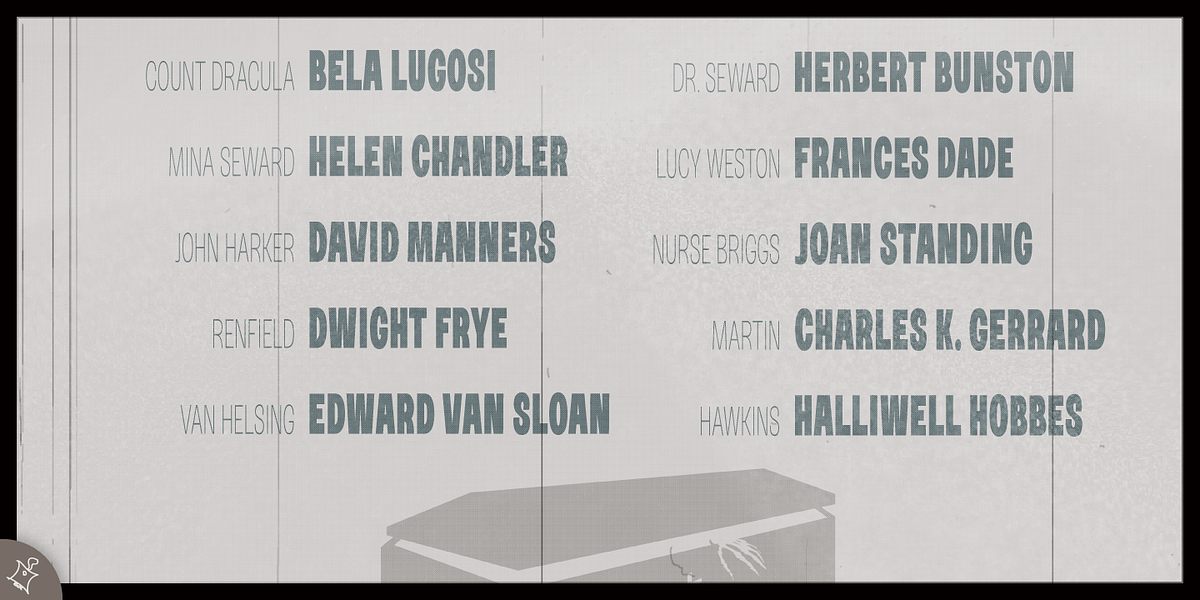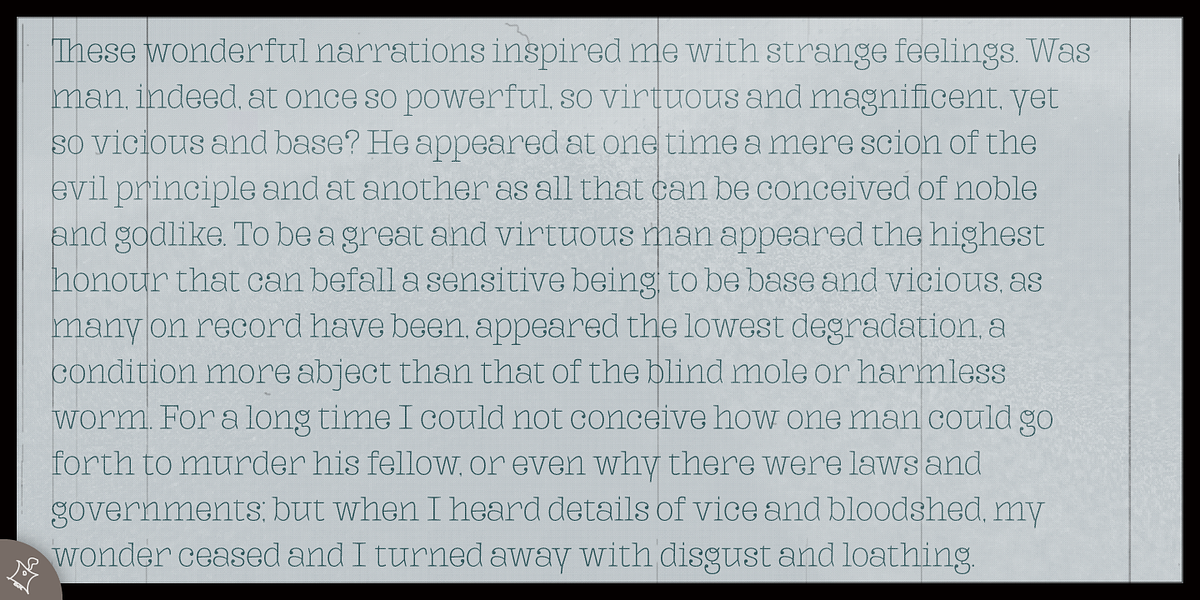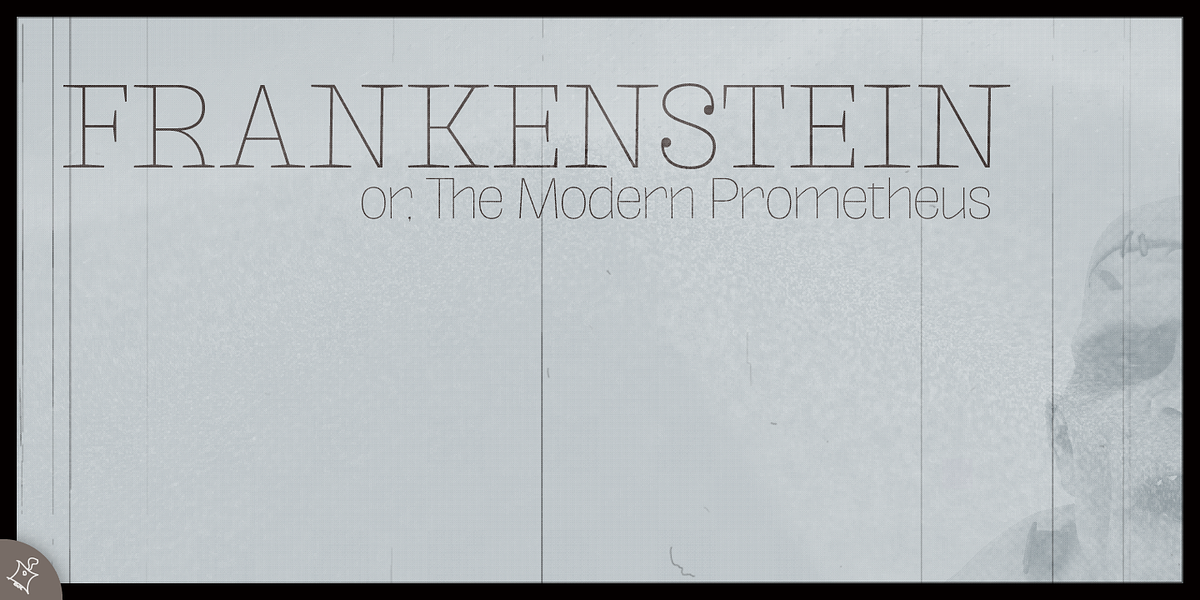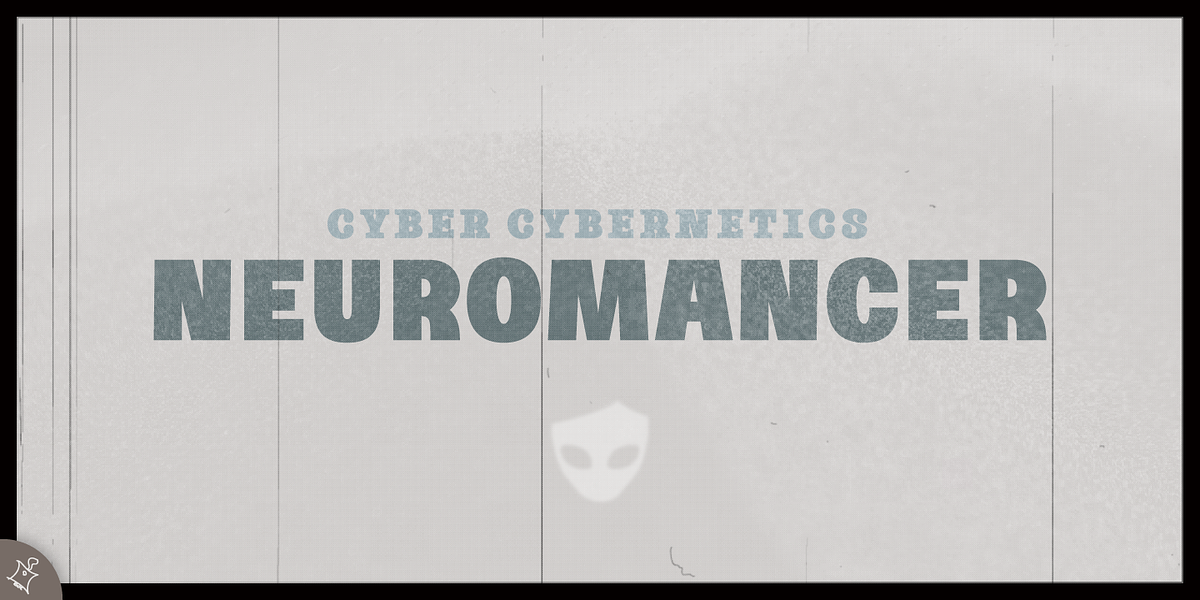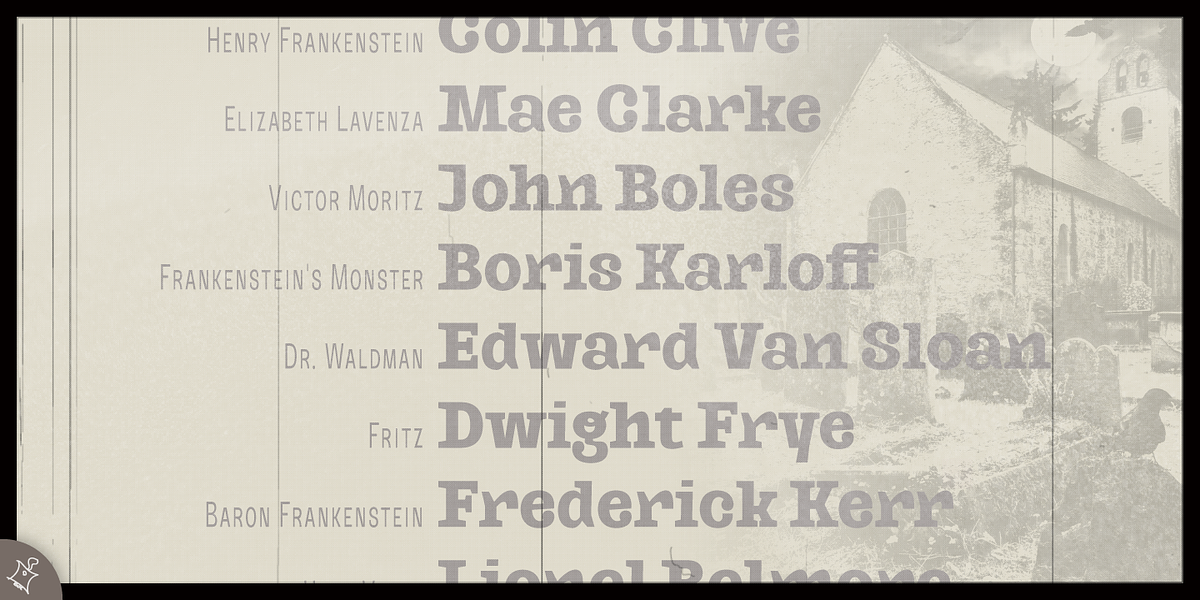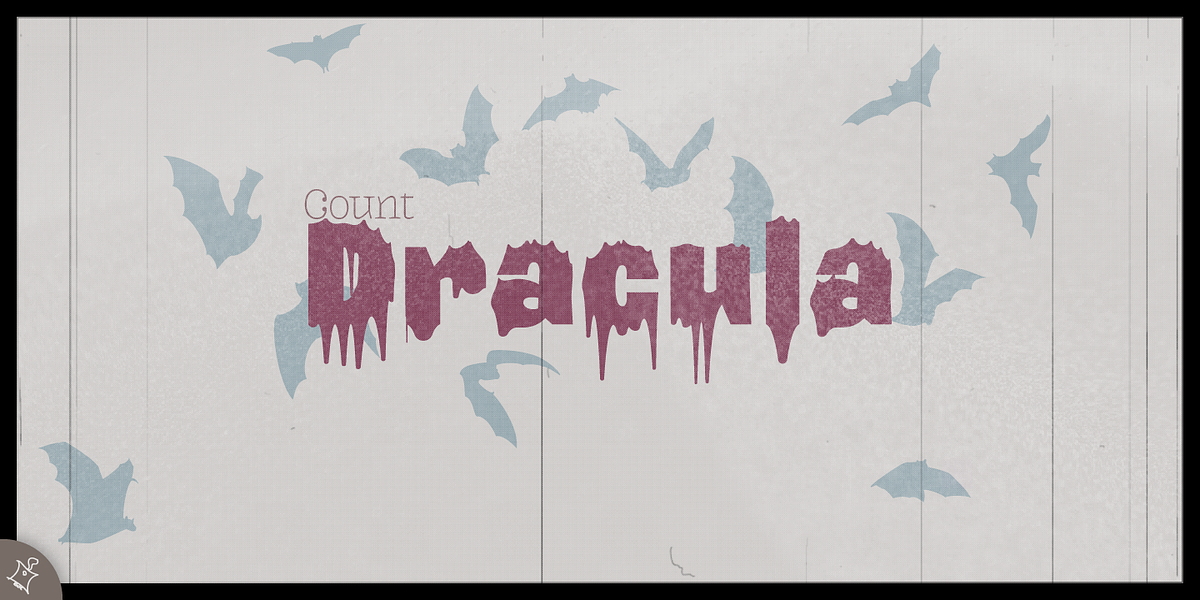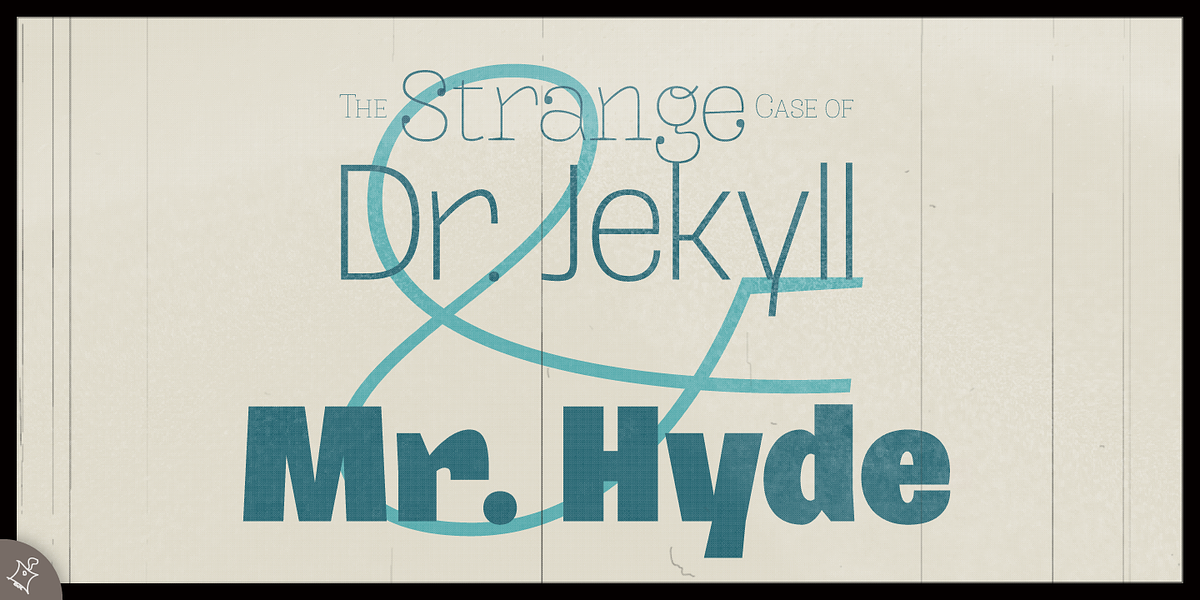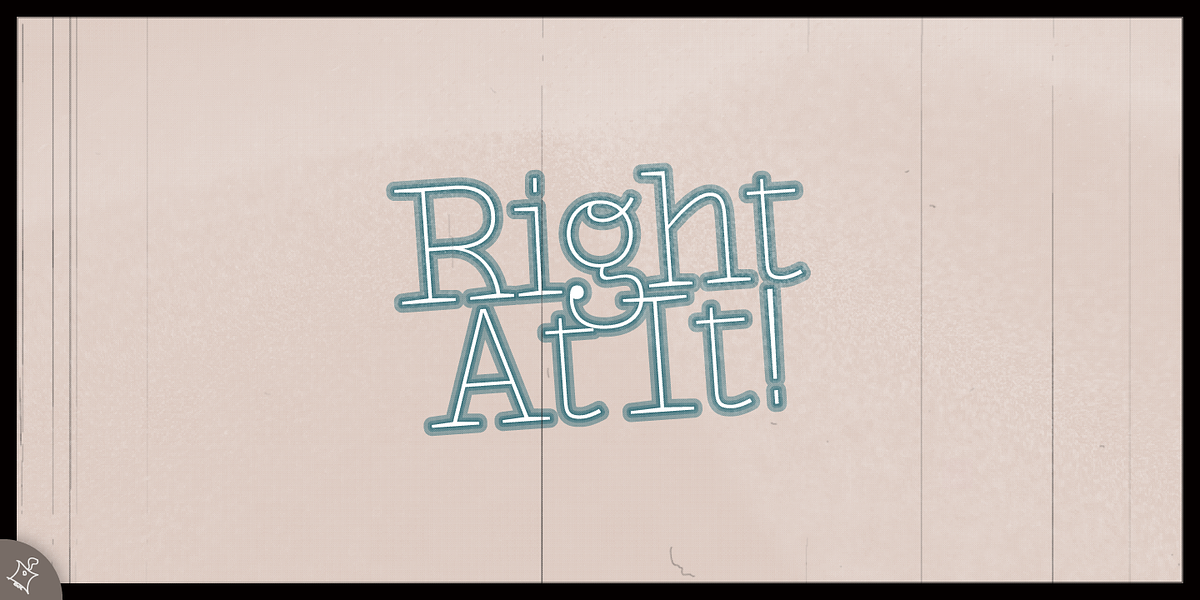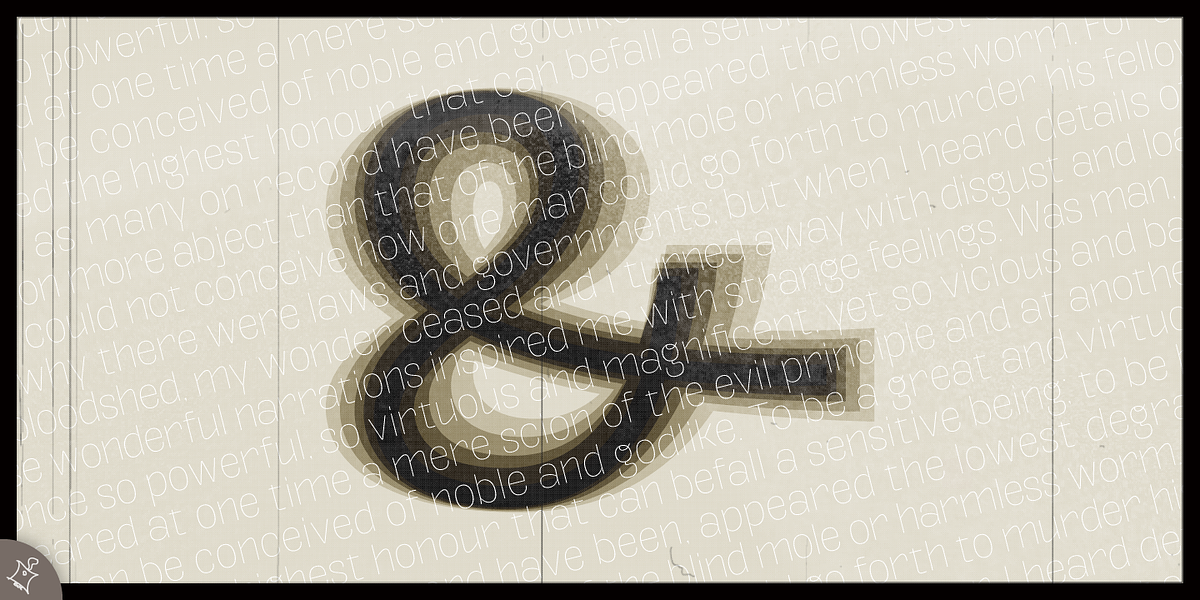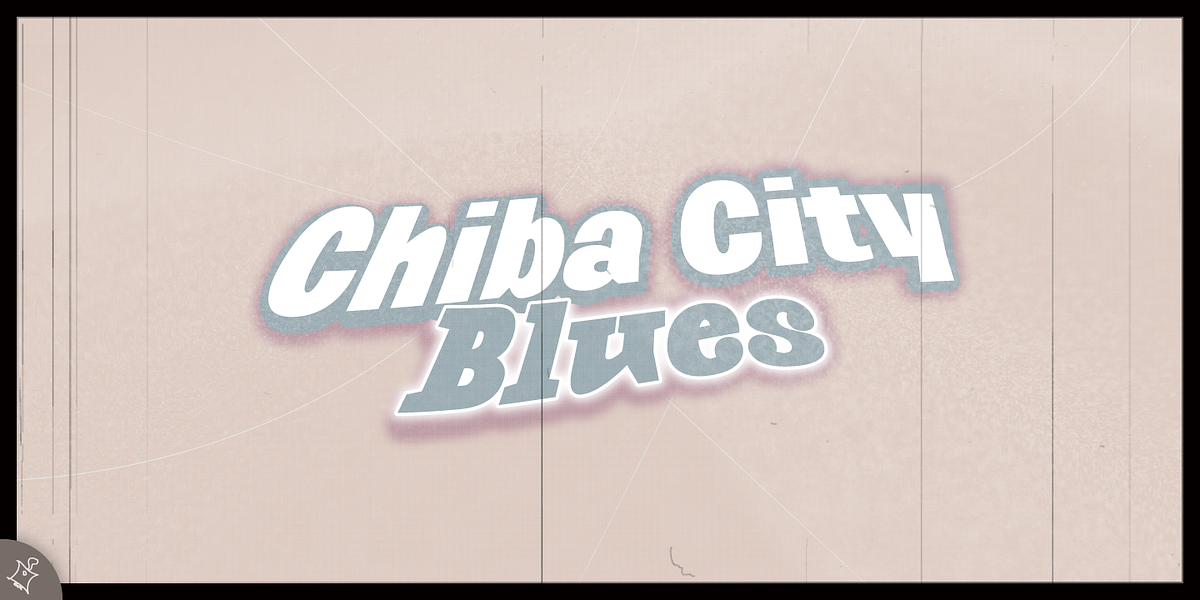
Kaybuts
This display typeface draws inspiration from Mary Shelley's novel 'Frankenstein', incorporating both modern sans-serif and pre-modern serif styles. Its design is intended for use at larger sizes, suggesting applications in headlines and posters where a bold and dramatic effect is desired.